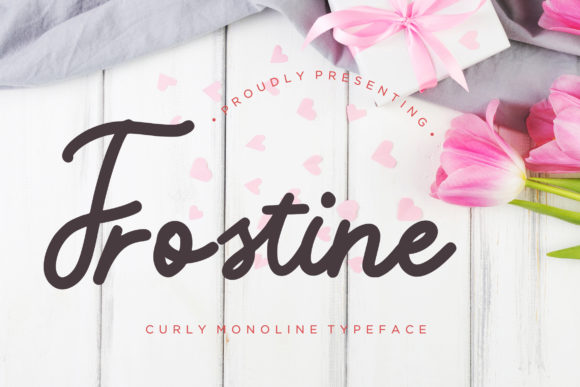
Frostine Font: A Timeless Handwritten Font for Stunning Designs
Frostine font is a classic handwritten font that has been a favorite among designers for years. Its elegant and cursive style makes it perfect for creating beautiful and great designs that stand out from the crowd. In this article, we’ll dive into the world of Frostine font, exploring its features, benefits, and uses, as well as provide tips on how to make the most of this amazing font.
Frostine font is a type of handwritten font that is characterized by its flowing and cursive style. It is a classic font that has been designed to mimic the look of traditional handwriting, with a touch of elegance and sophistication. The font is perfect for creating designs that require a personal touch, such as invitations, greeting cards, and social media graphics.
Frostine font comes with a range of features that make it a versatile and practical choice for designers. Some of its key features include:
- Elegant and Cursive Style: Frostine font has a beautiful, flowing style that is perfect for creating elegant and sophisticated designs.
- Classic Look: The font has a timeless look that never goes out of style, making it perfect for creating designs that require a traditional touch.
- Handwritten Style: Frostine font is a handwritten font that is designed to mimic the look of traditional handwriting, making it perfect for creating personal and unique designs.
- Easy to Read: The font is clear and easy to read, making it perfect for creating designs that require a high level of legibility.
Frostine font offers a range of benefits for designers, including:
- Unique and Personal Designs: Frostine font allows designers to create unique and personal designs that stand out from the crowd.
- Elegant and Sophisticated Look: The font adds an elegant and sophisticated touch to designs, making it perfect for creating high-end designs.
- Versatility: Frostine font can be used for a wide range of design projects, from invitations and greeting cards to social media graphics and website headers.
Frostine font can be used for a wide range of design projects, including:
- Invitations: Frostine font is perfect for creating elegant and sophisticated invitations for weddings, parties, and other special occasions.
- Greeting Cards: The font is great for creating beautiful and personal greeting cards for birthdays, holidays, and other special occasions.
- Social Media Graphics: Frostine font can be used to create stunning social media graphics, including Facebook posts, Instagram stories, and Twitter headers.
- Website Headers: The font can be used to create elegant and sophisticated website headers that make a great first impression.
Here are some tips for using Frostine font:
- Use it for Headings and Titles: Frostine font is perfect for creating headings and titles that require an elegant and sophisticated touch.
- Pair it with Other Fonts: The font can be paired with other fonts to create a unique and interesting design.
- Use it for Body Text: Frostine font can be used for body text, but it’s best to use it for short paragraphs or sentences.
- Experiment with Colors: The font looks great in a range of colors, so don’t be afraid to experiment and find the perfect color for your design.
Frostine font is a classic handwritten font that is perfect for creating beautiful and great designs. Its elegant and cursive style makes it a versatile and practical choice for designers, and its range of features and benefits make it a great addition to any design project. Whether you’re creating invitations, greeting cards, social media graphics, or website headers, Frostine font is a great choice.
- What is Frostine font?: Frostine font is a classic handwritten font that is characterized by its flowing and cursive style.
- Is Frostine font easy to read?: Yes, Frostine font is clear and easy to read, making it perfect for creating designs that require a high level of legibility.